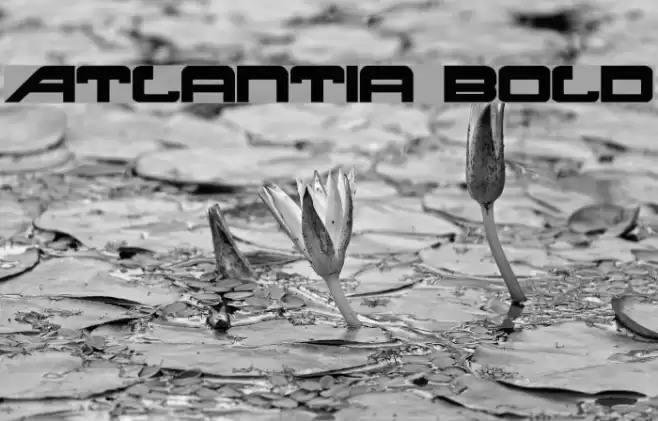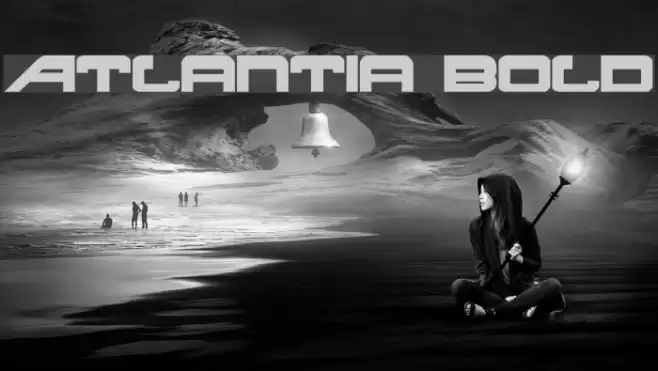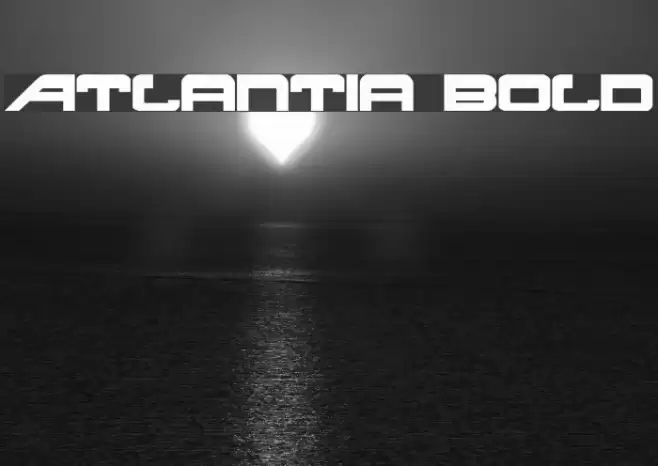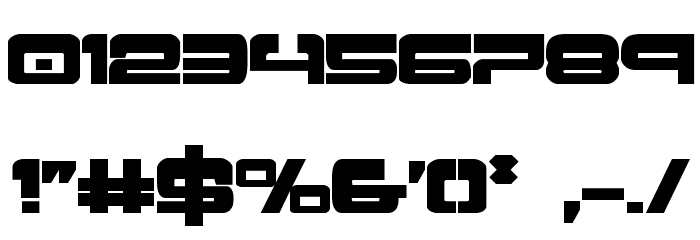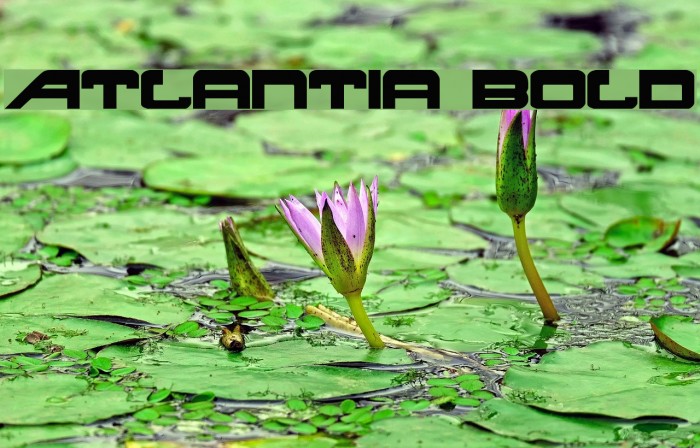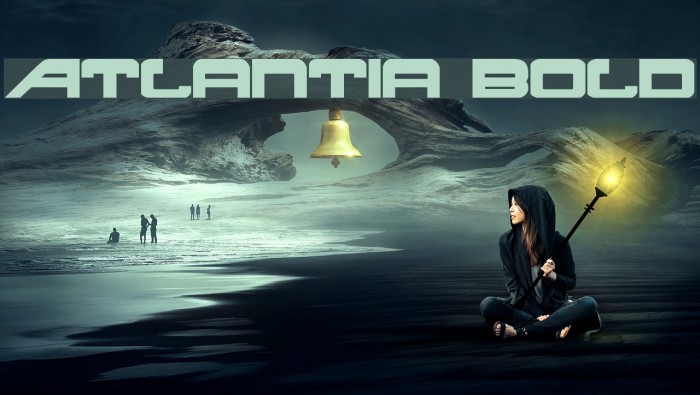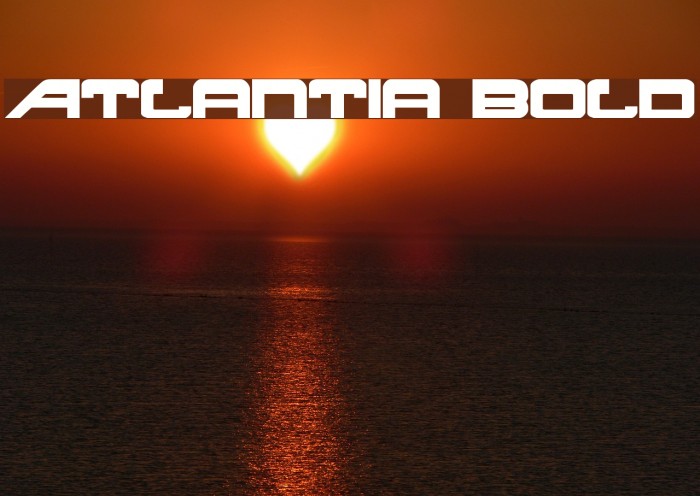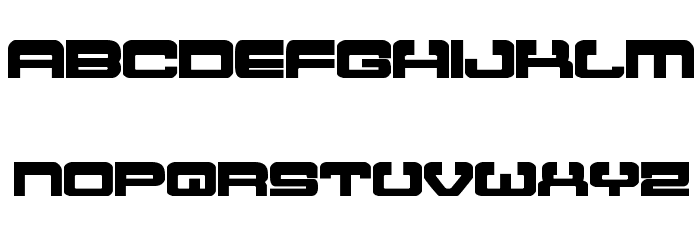
Atlantia Bold Font
Atlantia Bold Description
This font features a bold, futuristic design with a strong geometric structure. The characters are wide and blocky, with a distinct angular style that gives them a modern, tech-inspired appearance. The uppercase and lowercase letters maintain a consistent height, creating a uniform look. The numerals and special characters are designed to match the boldness and angularity of the alphabet, ensuring a cohesive appearance across all glyphs. The font's unique style makes it stand out, ideal for projects that require a modern and impactful visual presence.
A bold, futuristic font with a geometric, angular design from Uncategorized fonts.
- Proposed Projects: Ideal for technology branding, sci-fi posters, video game titles, and modern advertising.
- Width: Expanded